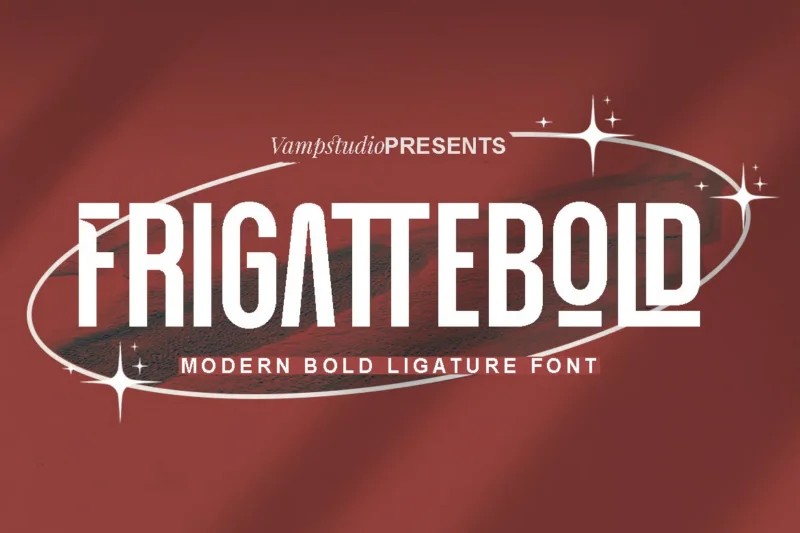
Frigatte Bold – Retro Display Font
Frigatte Bold is a retro-inspired display font featuring bold condensed shapes, clean edges, and unique cut-style alternates. Designed for logos, posters, headlines, and creative branding, this typeface delivers strong visual impact with a modern retro feel. Ideal for both digital and print projects that need eye-catching typography.
FEATURES
Uppercase & lowercase letters
Unique alternate characters
Complete numerals
Clean condensed design
Bold retro aesthetic
Smooth kerning & balanced spacing